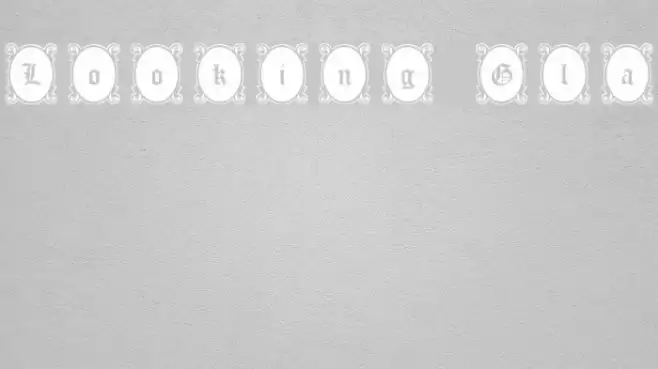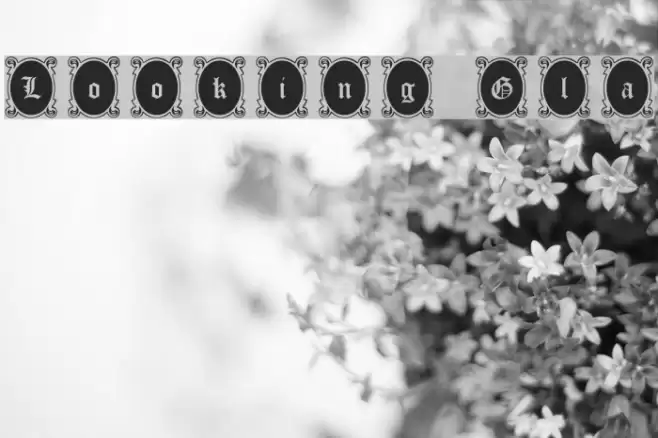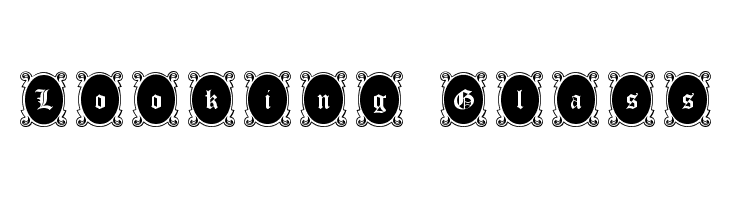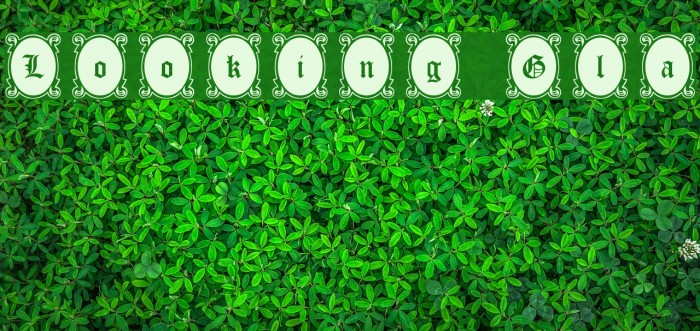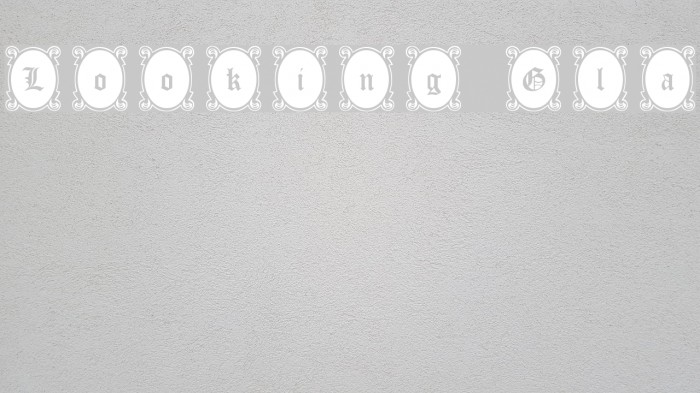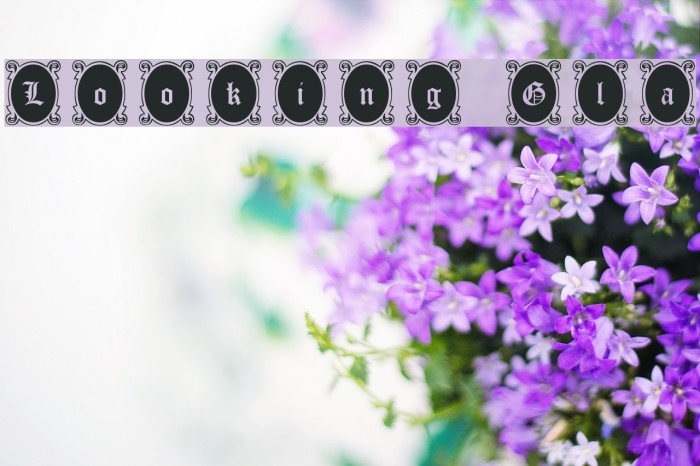
Looking Glass Font
Looking Glass Description
This font features a highly decorative style with ornate embellishments surrounding each character, creating a framed effect. The letters are bold and enclosed in an oval shape with intricate, swirling designs at the corners, giving it a vintage and elegant appearance. The characters are evenly spaced within their frames, ensuring clarity despite the elaborate design. This font is suitable for projects that require a touch of sophistication and historical charm, such as invitations, certificates, or branding for luxury products.
A decorative font with ornate frames and vintage elegance from Decorative fonts.
- Proposed Projects: Ideal for wedding invitations, luxury branding, vintage-themed posters, and decorative certificates.
- Overall Style: Vintage